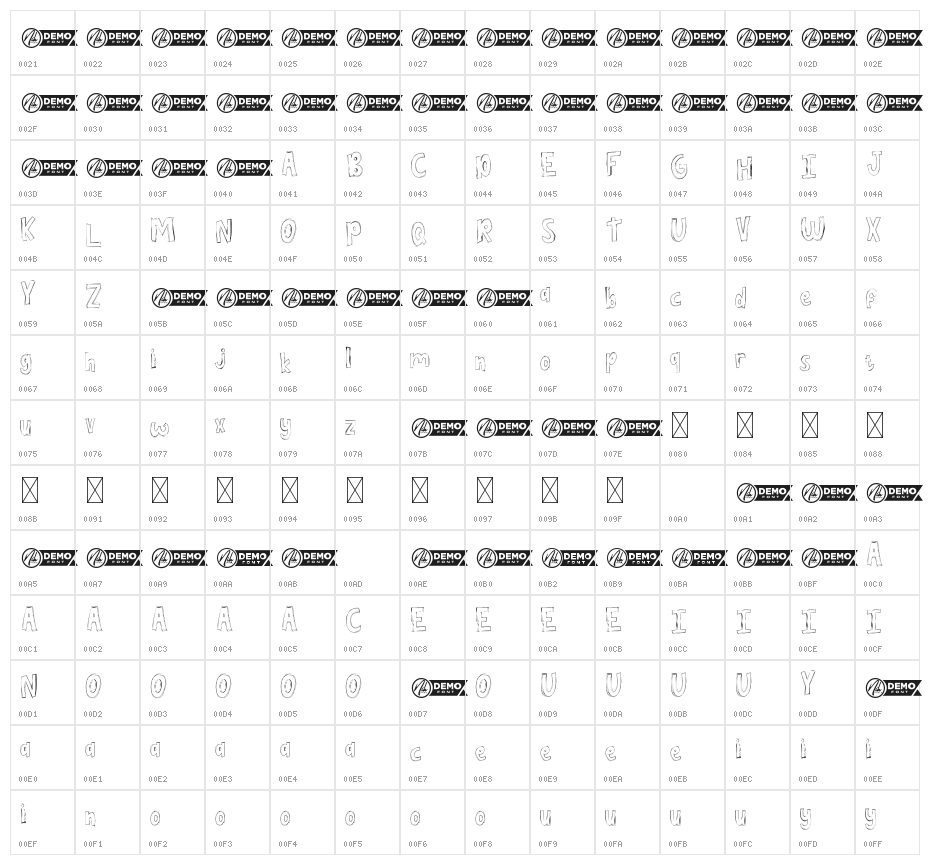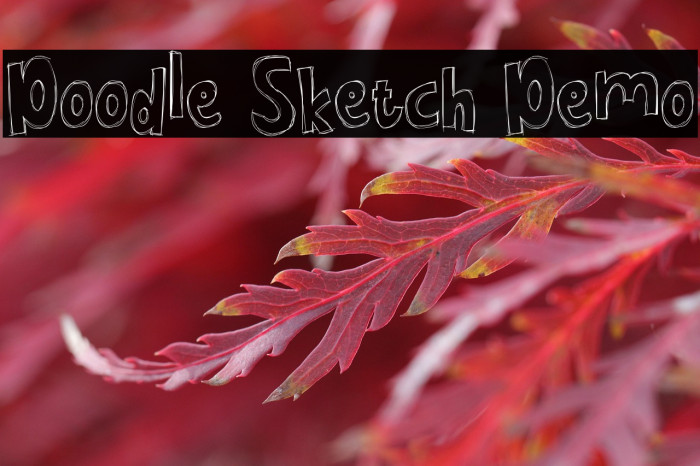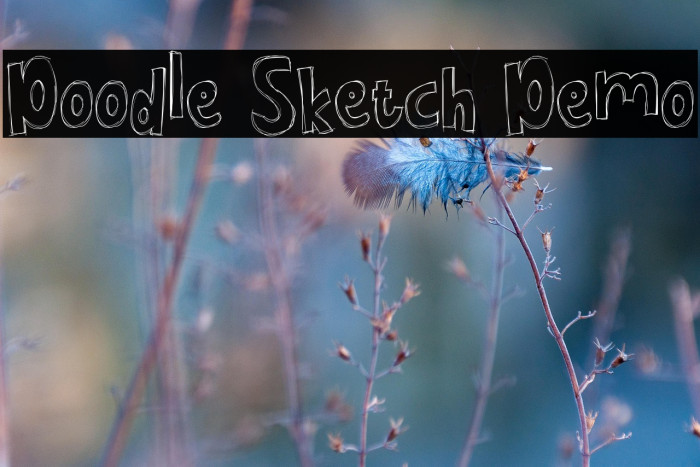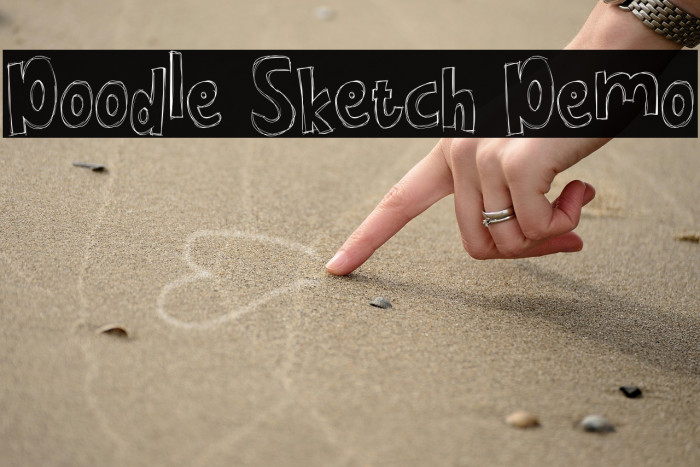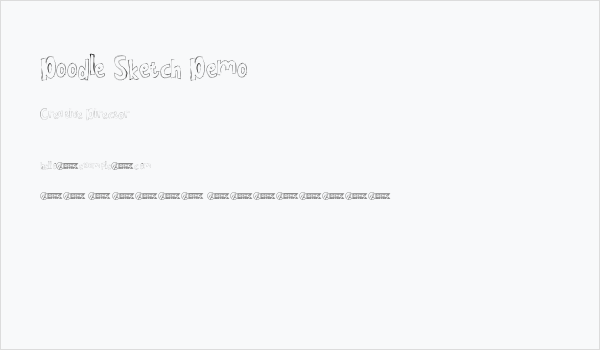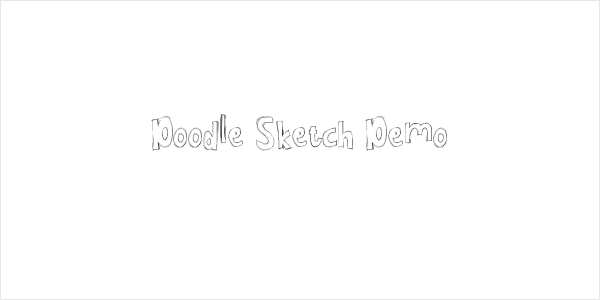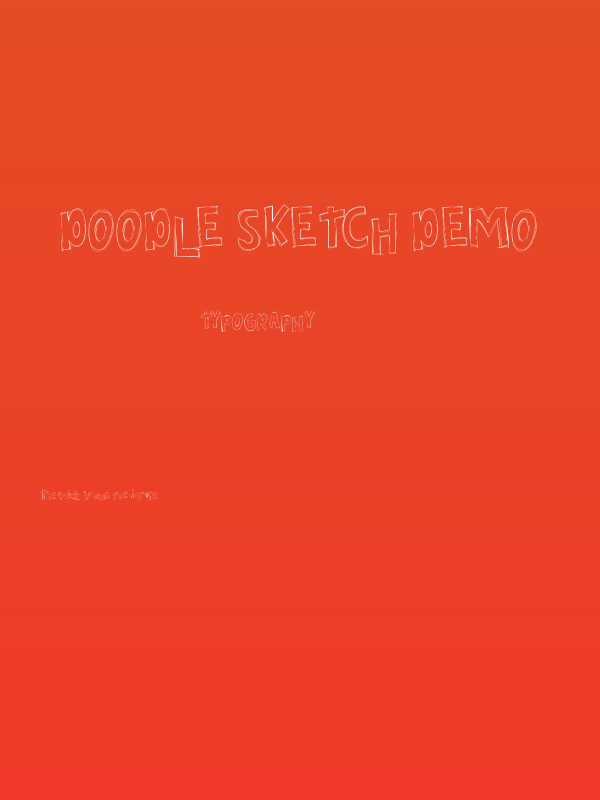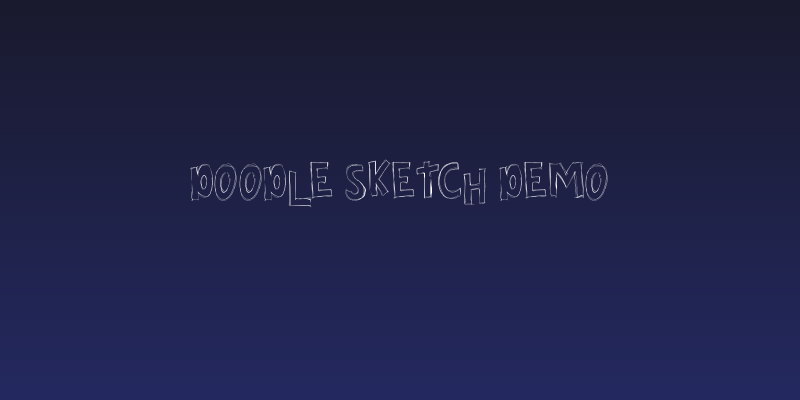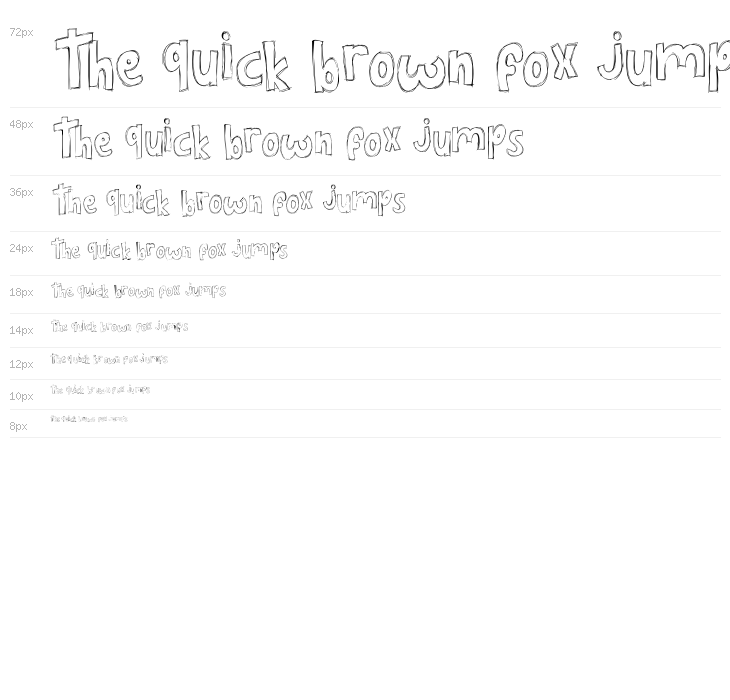
Doodle Sketch Demo Font
Doodle Sketch Demo Description
This playful and whimsical font features a hand-drawn, sketch-like appearance that gives it a casual and artistic feel. The letters are bold and slightly irregular, with a doodle-style outline that adds a sense of fun and creativity. Each character appears as if it has been drawn with a pencil, showcasing a unique texture that mimics the look of a sketchbook. The font maintains a consistent height across both uppercase and lowercase letters, providing a cohesive look while still embracing its quirky charm. The overall design is perfect for projects that require a touch of personality and artistic flair.
| Overall Style | Whimsical, Artistic |
| Use Case | Headlines, Logos, Creative Projects |
| Proposed Projects | Ideal for children's book covers, creative posters, art projects, and playful branding. |